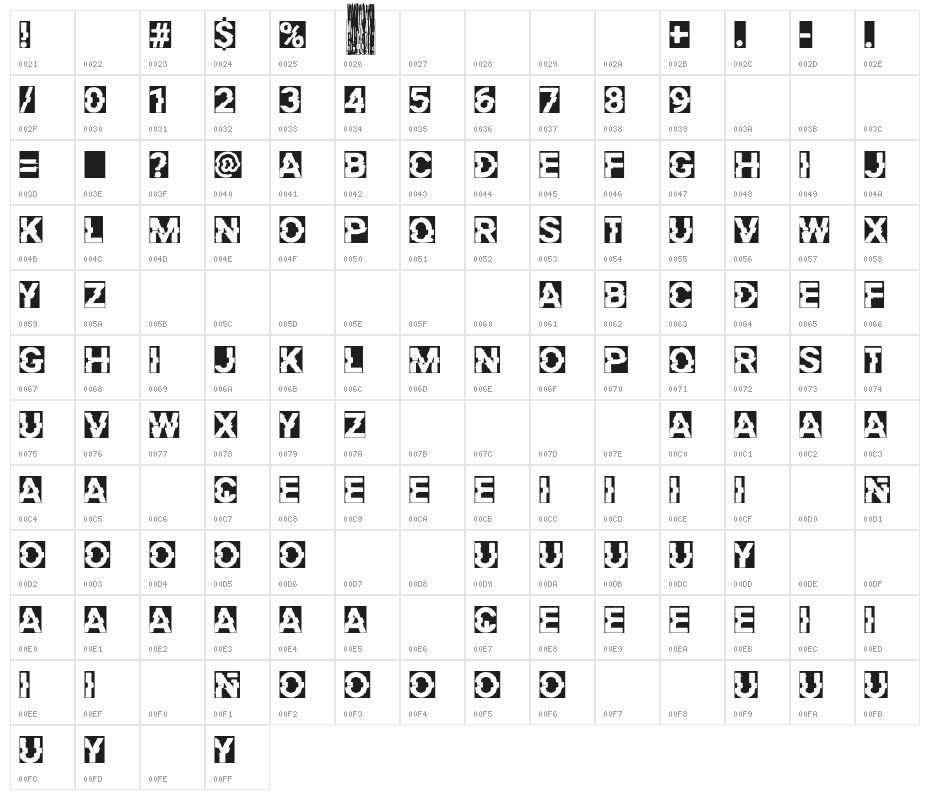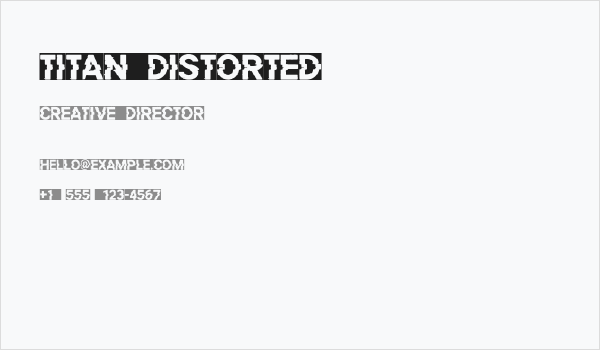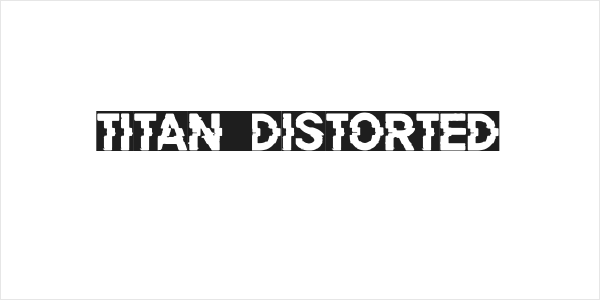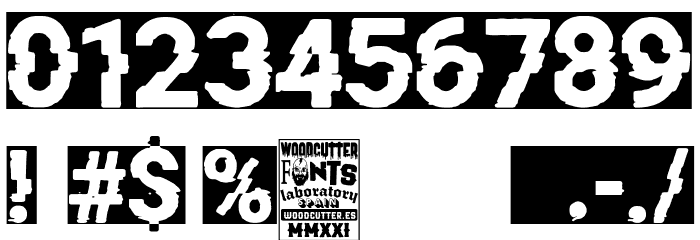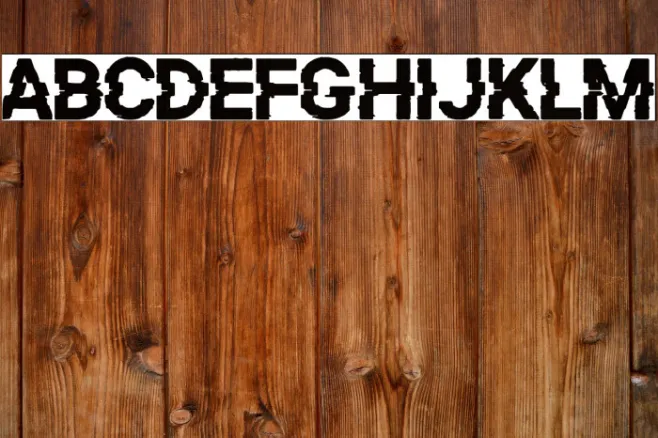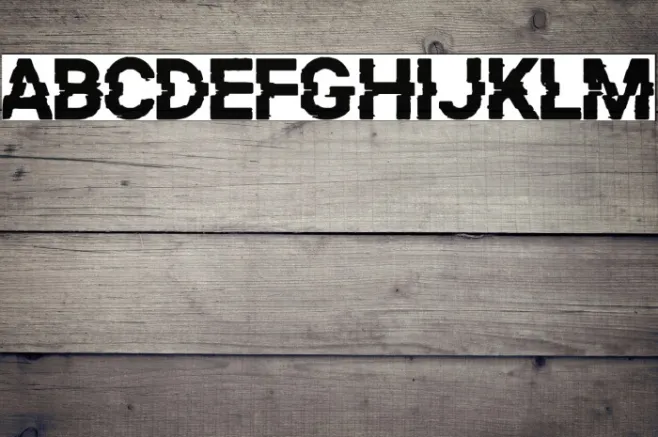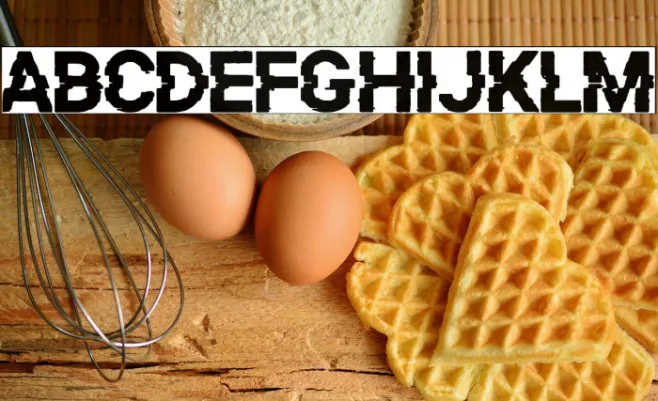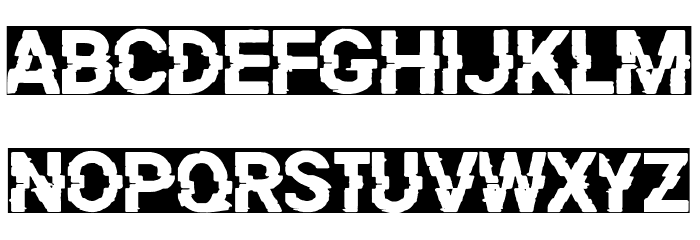
Titan Distorted Font
Titan Distorted Description
This font features a bold and distressed style, characterized by its rough, textured appearance that gives it a rugged, industrial feel. The characters are heavily stylized with irregular edges and a worn-out look, making it ideal for designs that require a gritty, urban aesthetic. The uppercase and lowercase letters maintain a consistent weight, while the numbers and special characters follow the same distressed theme, ensuring uniformity across all text elements. This font's unique style is perfect for projects that aim to convey strength, resilience, and a touch of rebellion.
| Proposed Projects | Ideal for posters, album covers, video game graphics, and branding for edgy or industrial-themed products. |